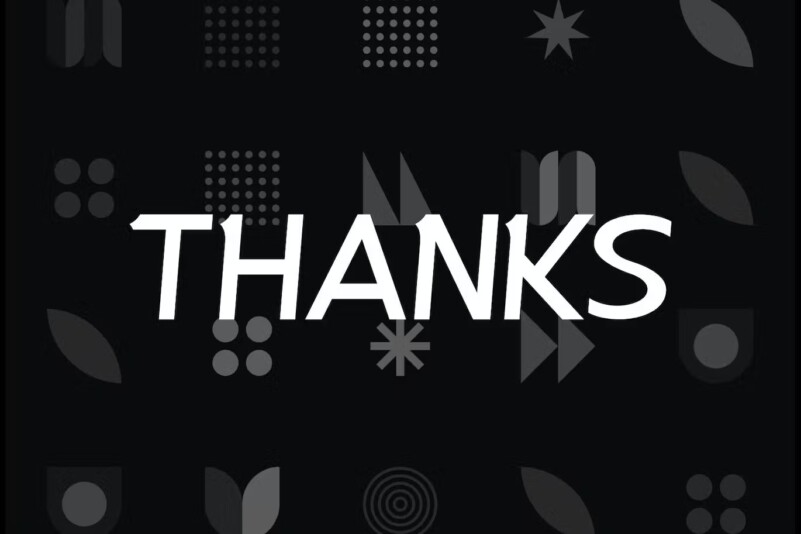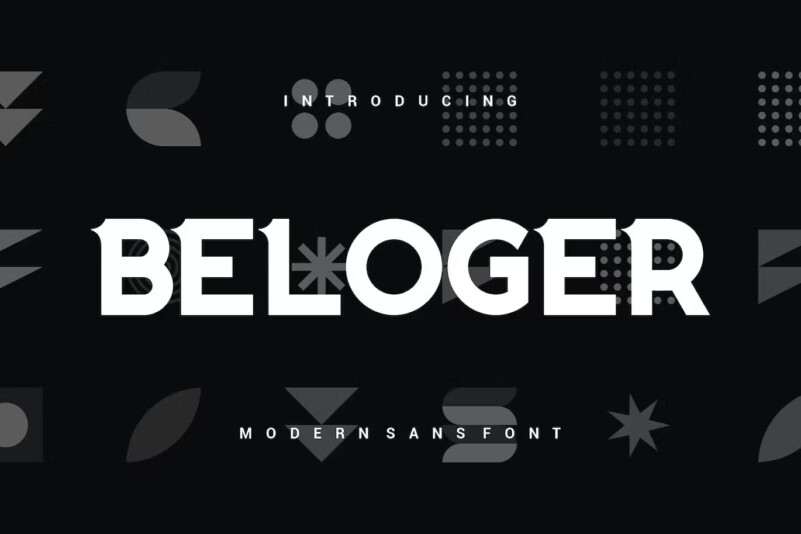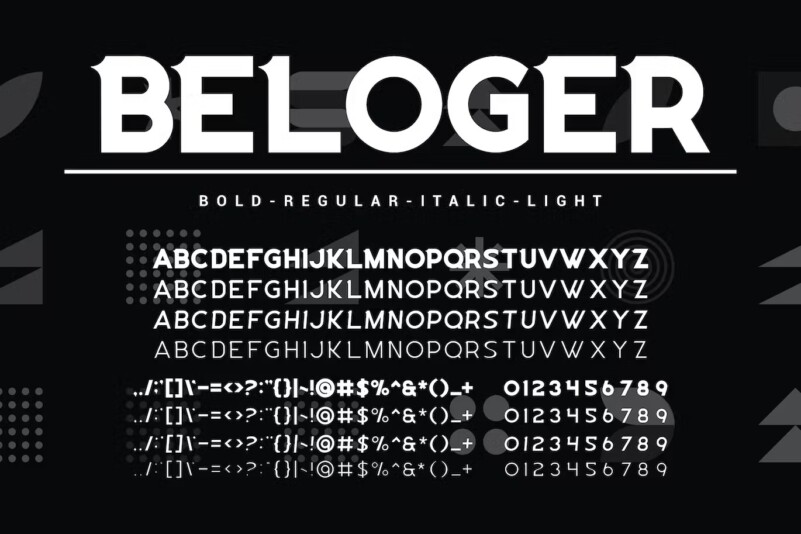
Beloger Font
Beloger Font (Bold – Itatic – Light – Regular) Beloger Font is an elegant and authentic display font. This font is suitable for any branding projects such as logos, t-shirt printing, esports, and many more. Extraordinary in many contexts